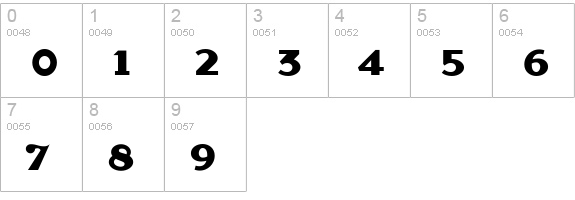
Dogma-Bold is a strong, high-contrast variant in the Dogma typeface family \xE2\x80\x94 well suited to headlines, attention-grabbing titles, and strong calls-to-action.
Dogma-Bold is a striking and modern font that exudes confidence and boldness. With its clean lines and sharp edges, this font demands attention and makes a powerful statement. Perfect for headlines, titles, and branding projects, Dogma-Bold adds a touch of sophistication and strength to any design. The best part? Dogma-Bold is available for free download at FontsMarket.com. So, you can easily add this impressive font to your collection without breaking the bank. Don't miss out on the opportunity to elevate your designs with the impactful Dogma-Bold font today!